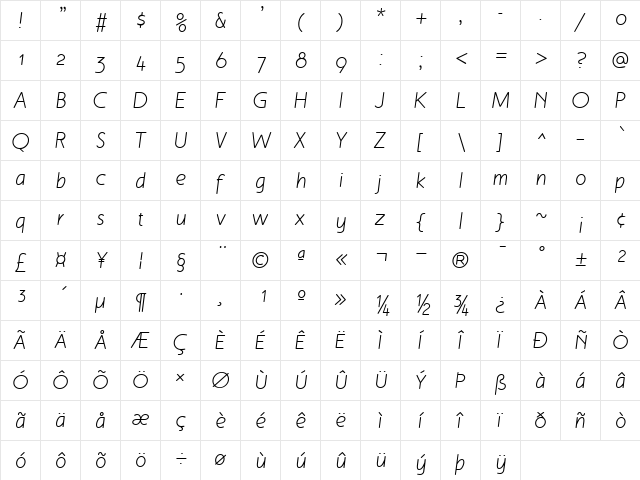
Malvern OSF Italic
Design Context for Malvern OSF Typeface
Malvern OSF takes a measured approach to typography — its balanced proportions and neutral character make it a reliable workhorse for both digital and print work. The slanted form adds forward momentum and visual energy.